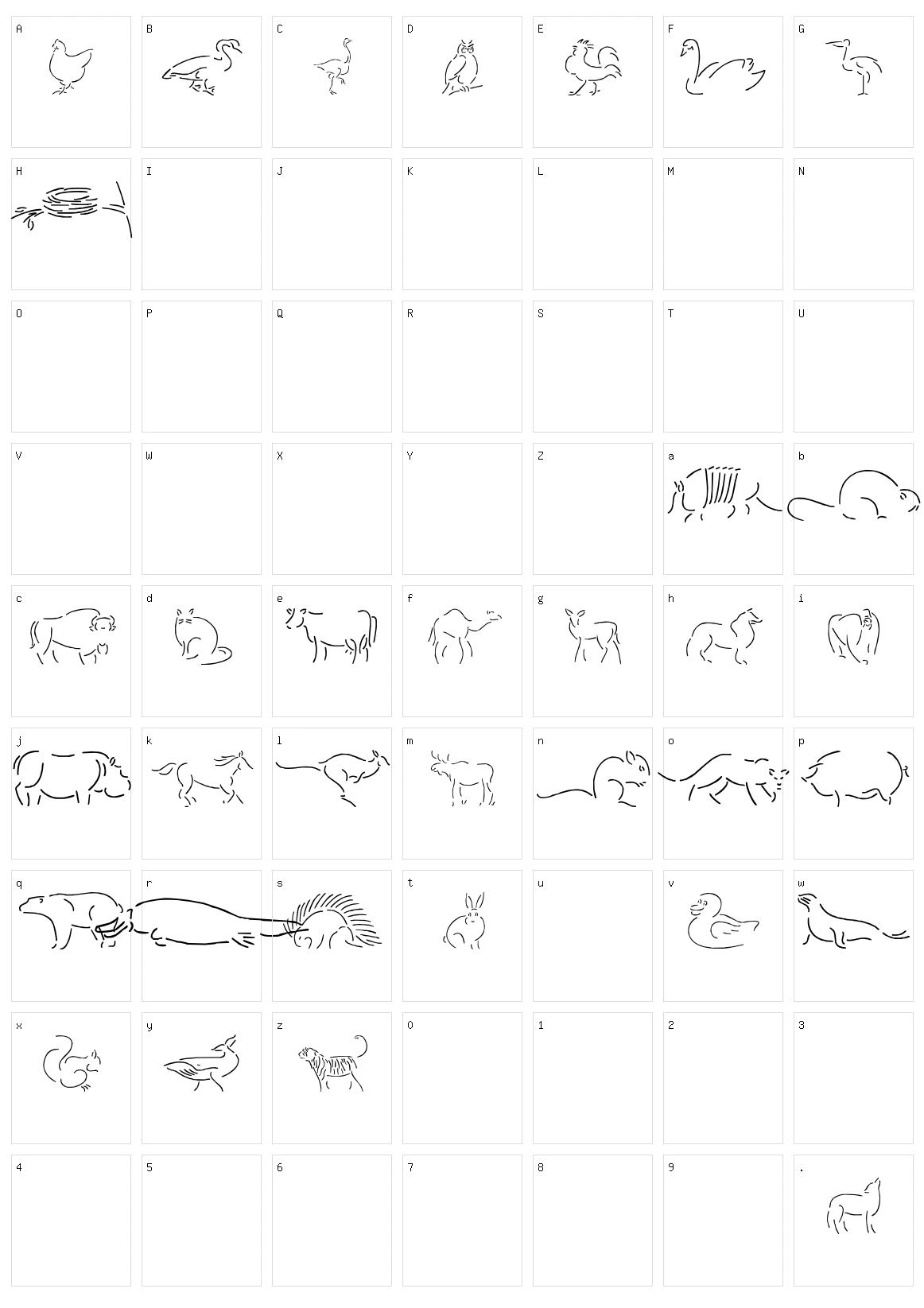
Font name: Founa BC
character set
a : armadillo
b : beaver
c : buffalo
d : cat
e : cow
f : camel
g : deer
h : dog
i : gorilla
j : hippopotamus
k : horse
l : kangeroo
m : moose
n : mouse
o : panther
p : pig
q : polar bear
r : platypus
s : porcupine
t : rabbit
u : rhinoceros
v : duck
w : seal
x : squirrel
y : whale
z : tiger
. : wolf
A : chicken
B : goose (ganz)
C : ostrich (struisvogel)
D : owl
E : roster
F : swan
G : stork
H : nest